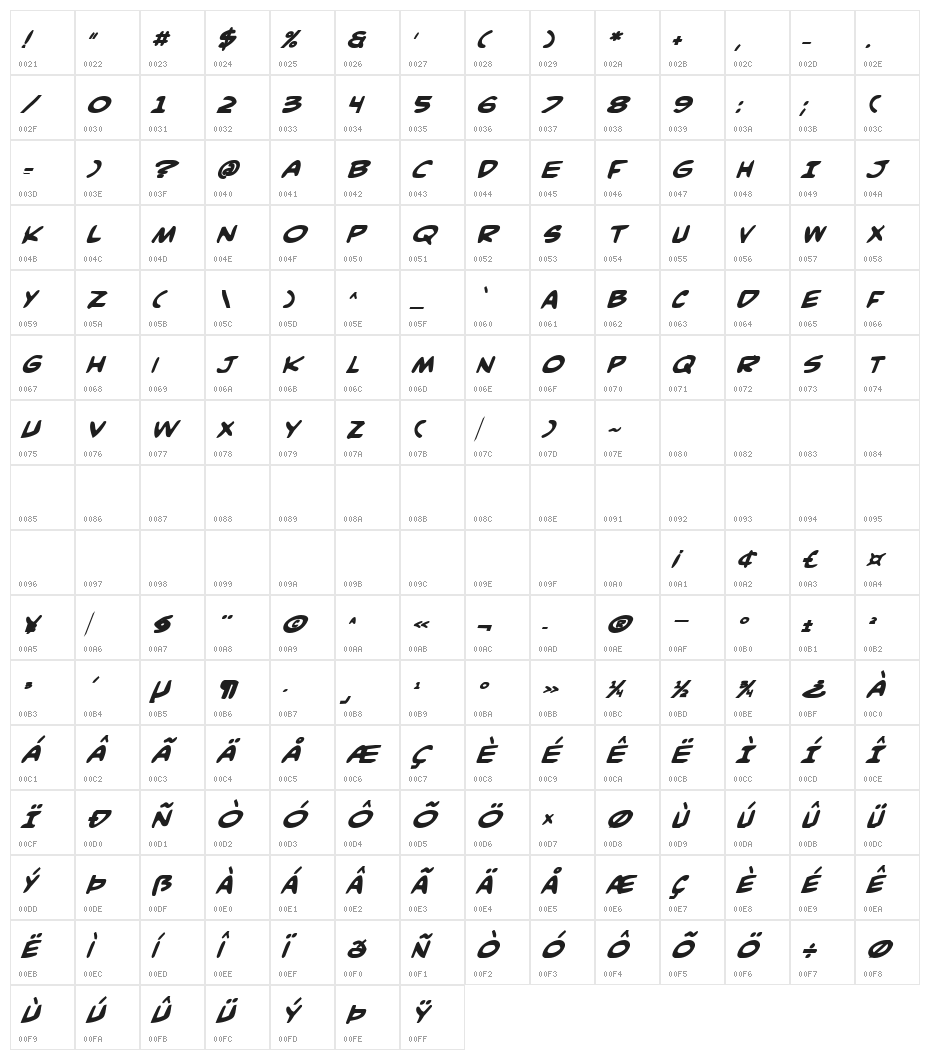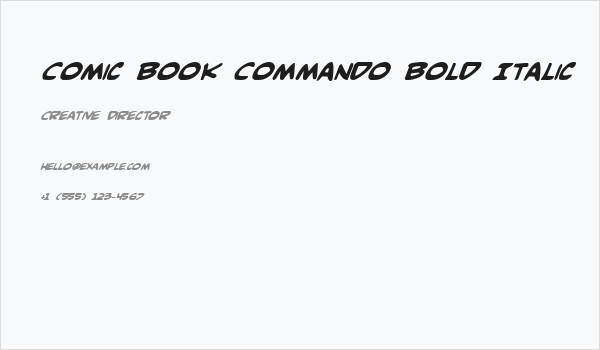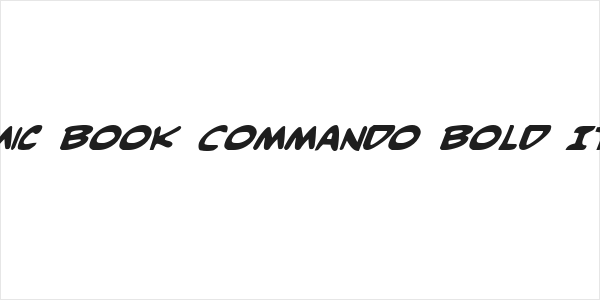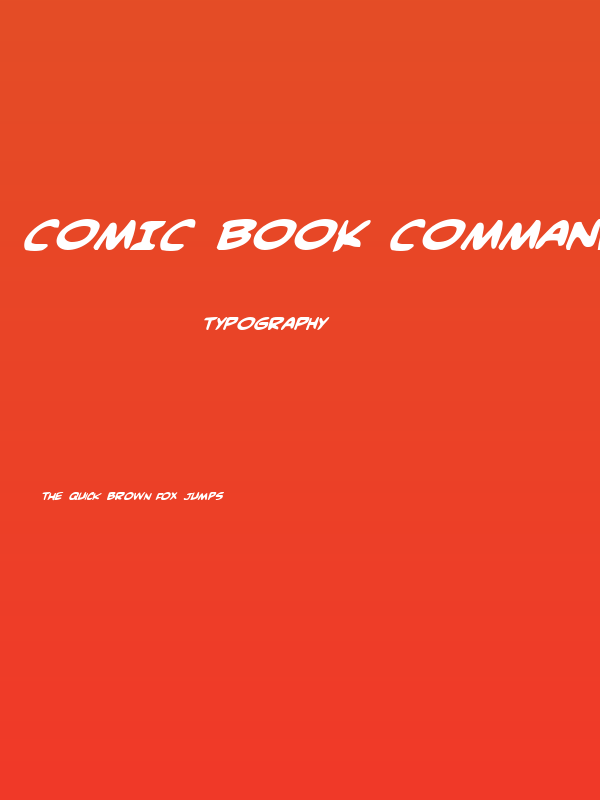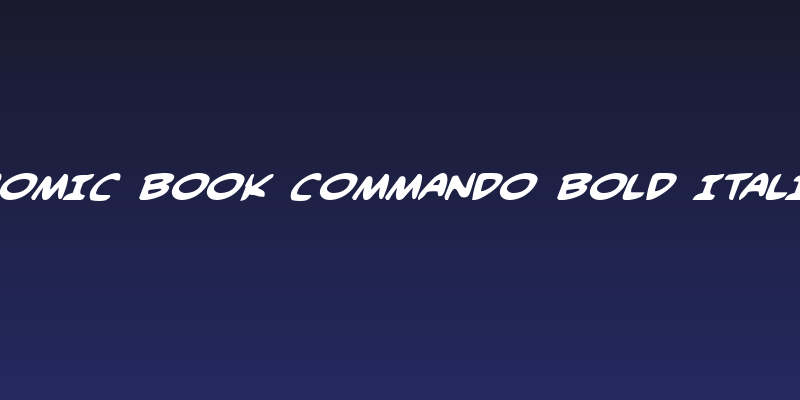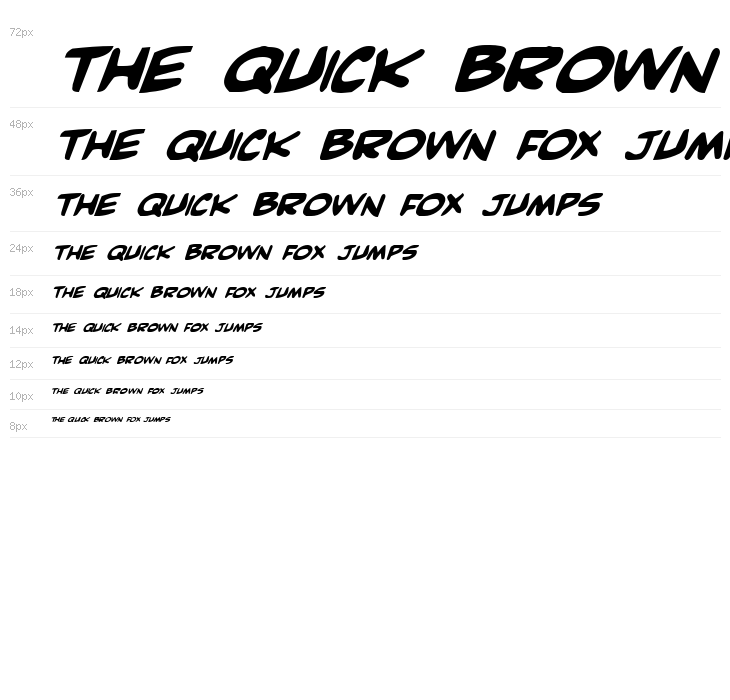
Comic Book Commando Bold Italic Font
Comic Book Commando Bold Italic Description
This font features a bold and dynamic style with a strong italic slant, reminiscent of classic comic book lettering. The characters are thick and rounded, giving them a playful and energetic appearance. The uppercase and lowercase letters maintain a consistent flow, while the numerals and special characters complement the overall aesthetic. The font's design is both eye-catching and legible, making it suitable for various creative applications.
| Overall Style | Comic, Playful, Energetic |
| Proposed Projects | Ideal for comic book titles, graphic novels, playful branding, and eye-catching posters. |